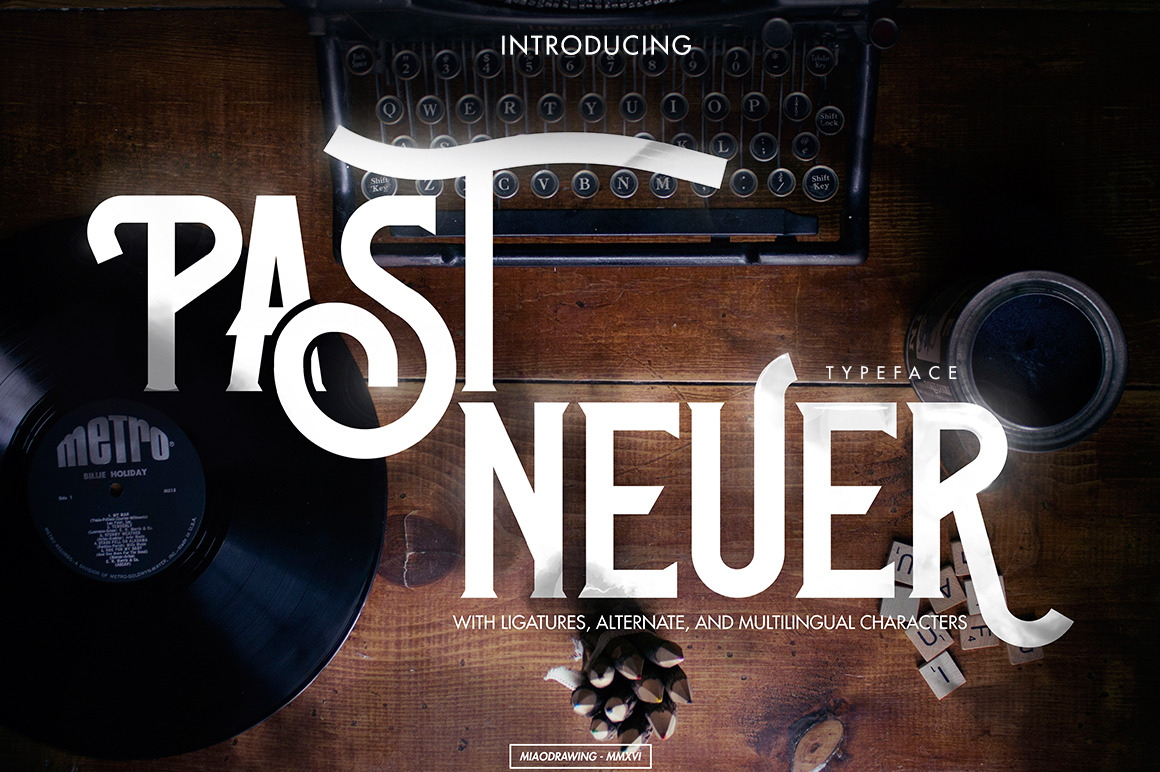
Past-Neuer Typeface
Past-Neuer Typeface is handmade modern bringing past and future display typefaces. Combining classic style and modern typography with many features inside. Suitable for posters, shirt, or any design requirements.
Past-Neuer Features :
OpenType Features :
- Fraction
- Stylistic Alternate
- SS01, SS02, SS03, SS04
There are more than 250 gylphs including Stylistic Alternates, Ligatures, Fraction, etc. OpenType features with Stylistic Alternates, Stylistic Set in some characters that you can mix and match any letters to fit your design. To access the alternate glyphs, you need a program that supports OpenType features such as Adobe Illustrator CS and Adobe Indesign.